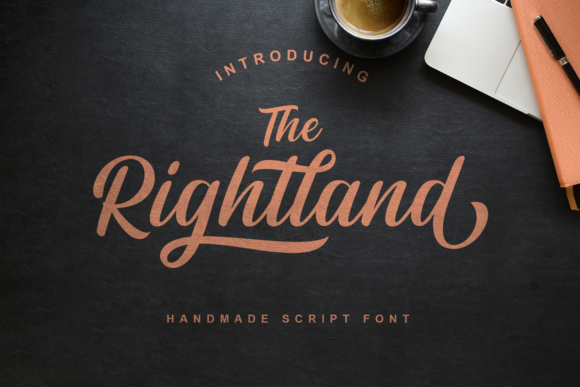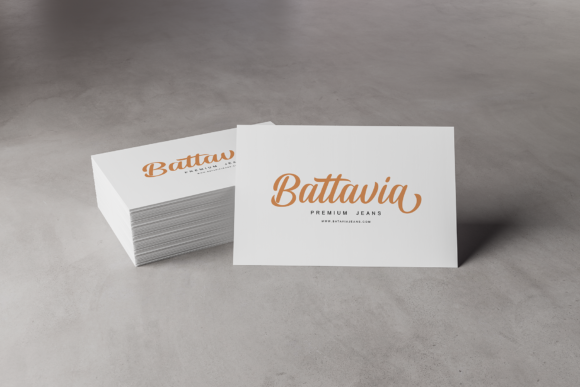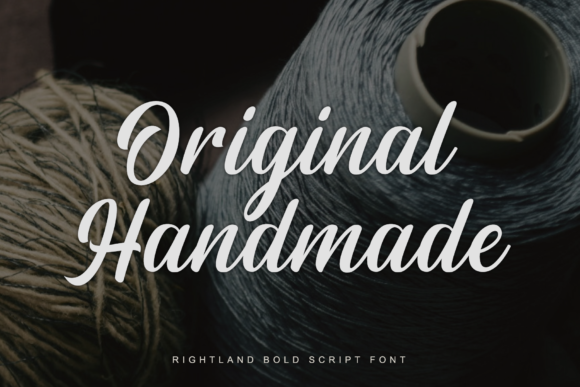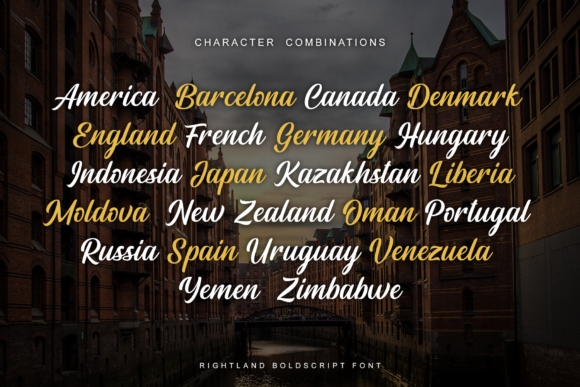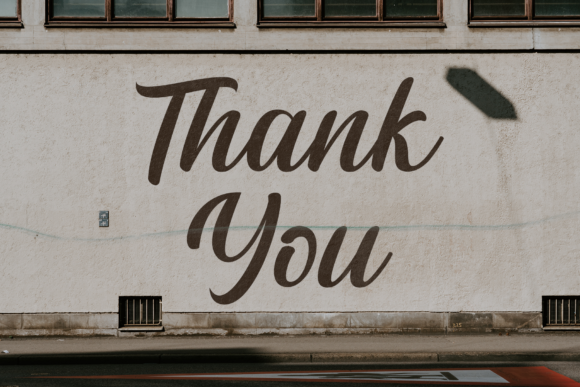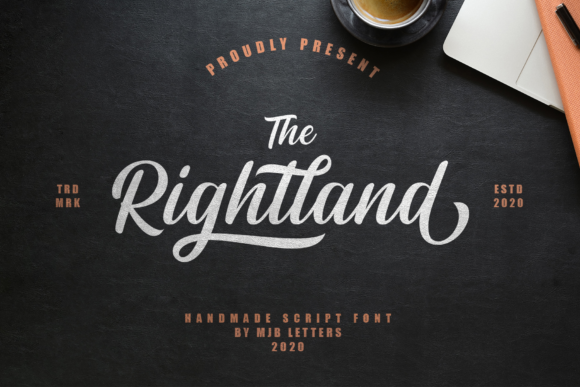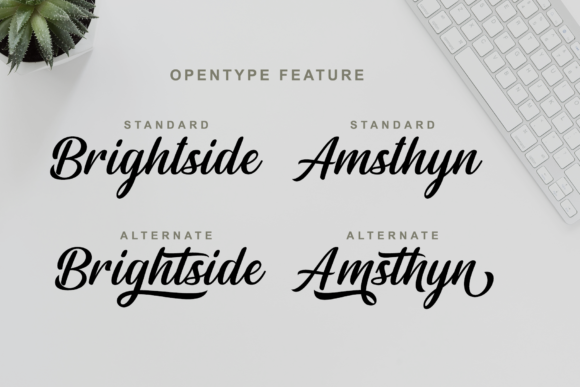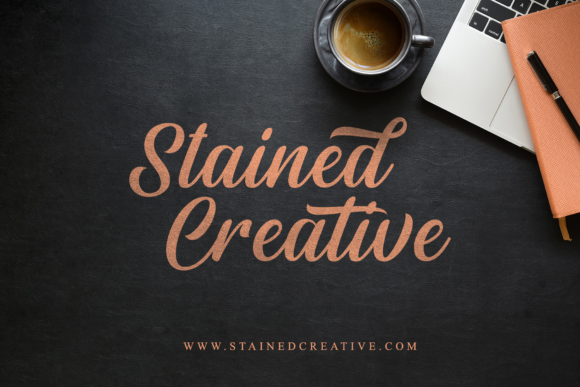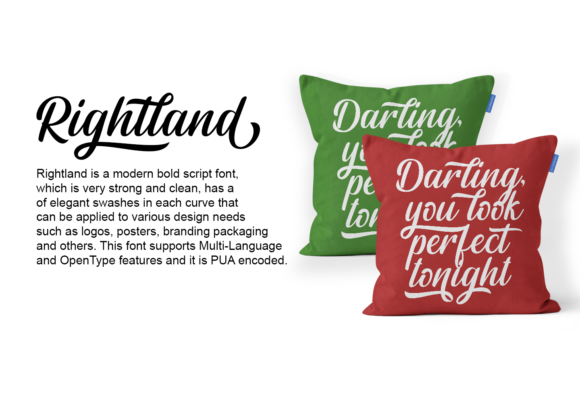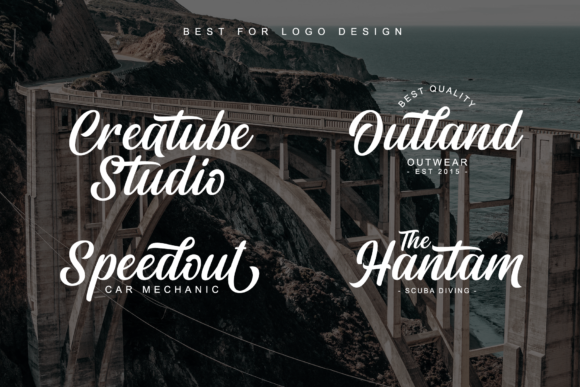
Rightland Font
About Rightland Font
Rightland is a modern and elegant handwritten font. Clean and a little bit quirky, this font is the perfect fit for all of your logos, branding, social media, and crafty DIY projects.
This font is PUA encoded which means you can access all of the amazing glyphs and swashes with ease!